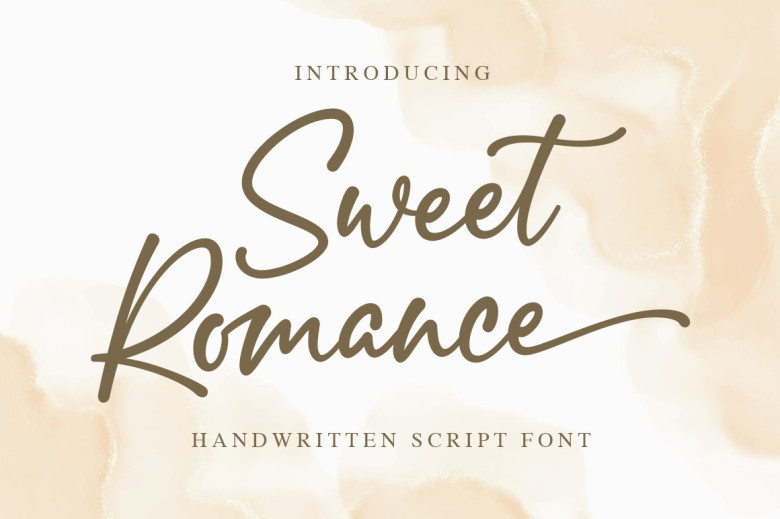
Sweet Romance Font
Sweet Romance is a thin lettered, lovely and fashionable handwritten script font. This font is PUA encoded which means you can access all of the glyphs and swashes with ease! Fall in love with its incredibly versatile style and use it to create spectacular designs!
Sweet Romance Handwritten Script Font